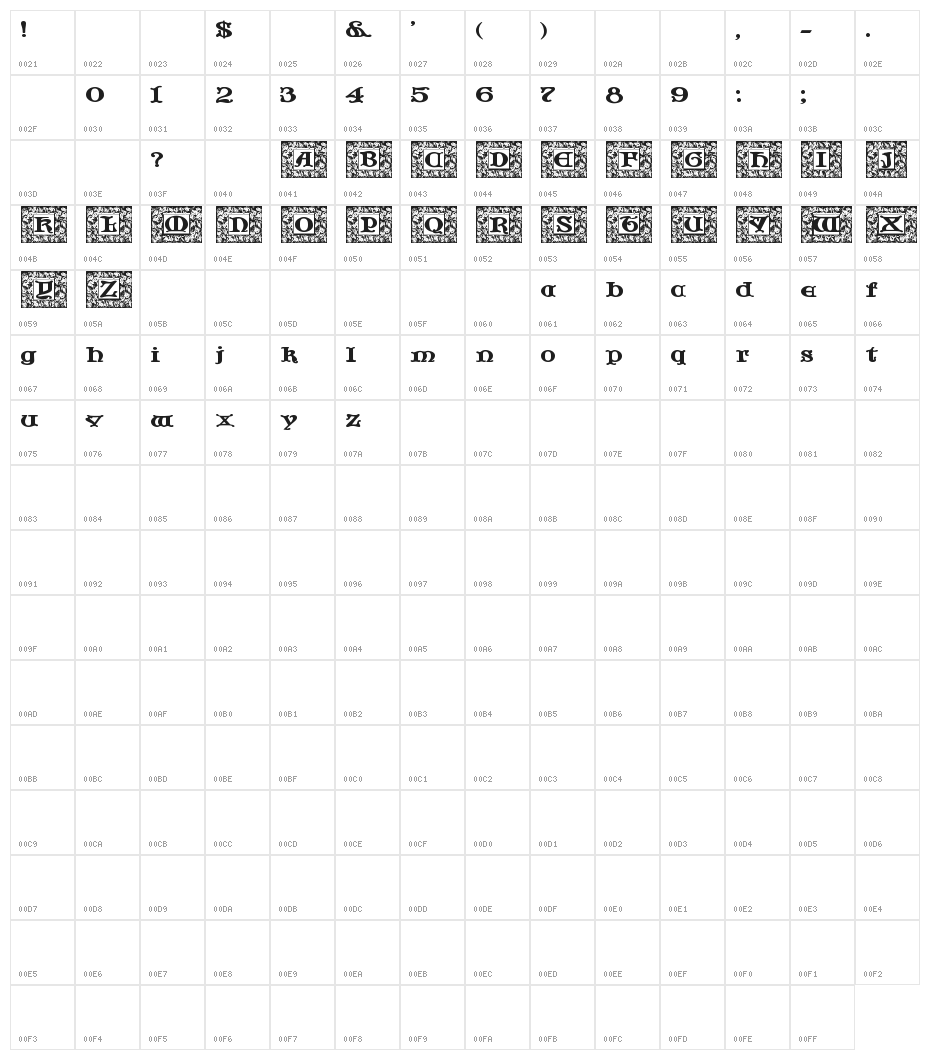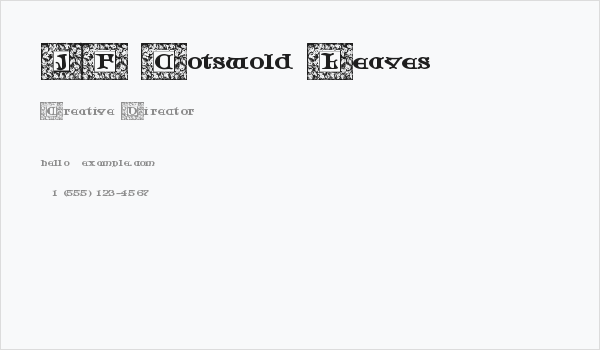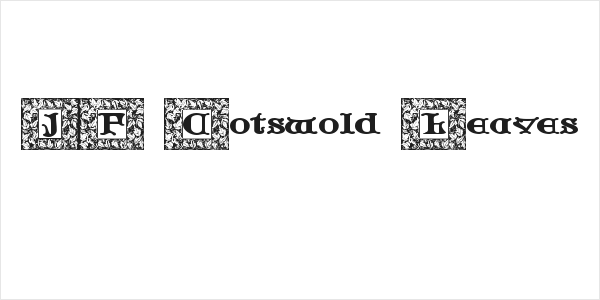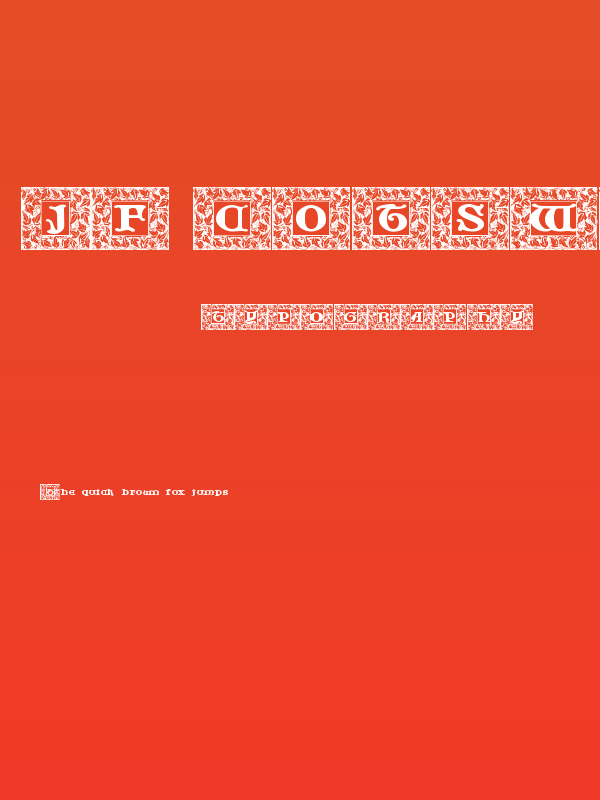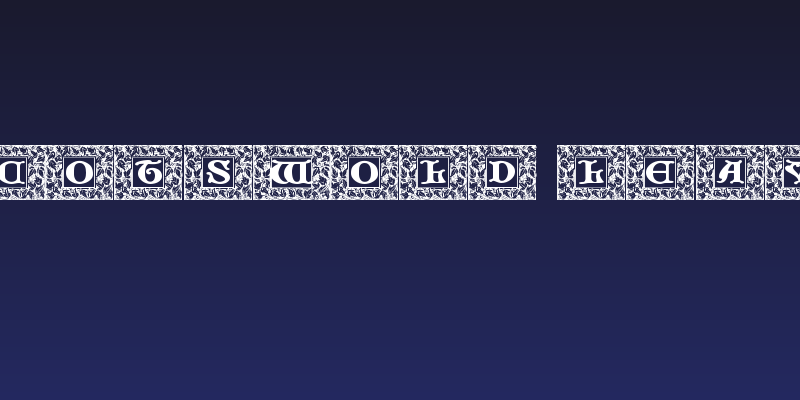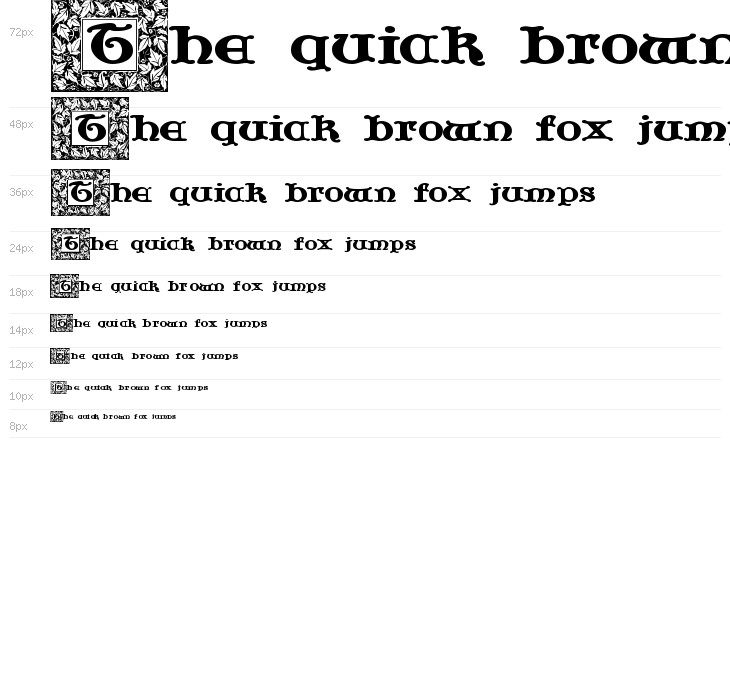
JF Cotswold Leaves Font
JF Cotswold Leaves Description
This font features a decorative and ornate style, characterized by its intricate leaf-like patterns embedded within the letterforms. The uppercase letters are enclosed in square frames with detailed foliage designs, adding a unique and artistic touch. The lowercase letters maintain a bold and robust appearance, with thick strokes and slight curves that enhance readability while retaining an artistic flair. The numerals and special characters are designed to match the overall theme, ensuring consistency across all elements. This font's distinct style makes it suitable for creative and decorative applications, where a touch of elegance and sophistication is desired.
| Proposed Projects | Ideal for invitations, greeting cards, book covers, and decorative posters where a unique and artistic touch is needed. |